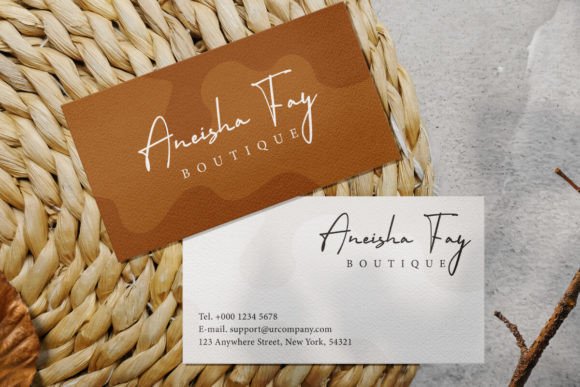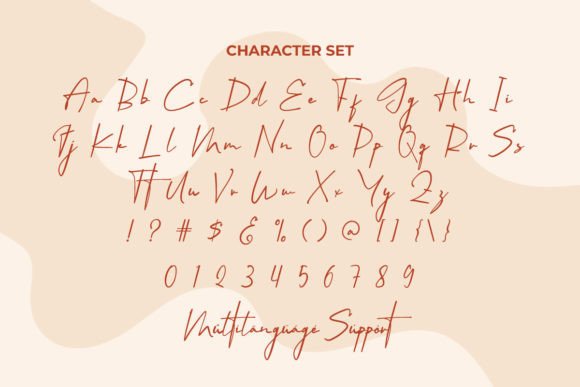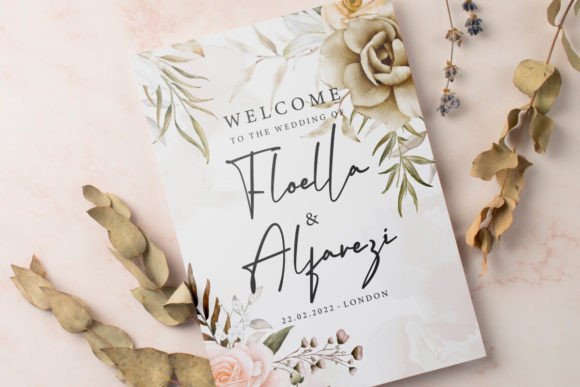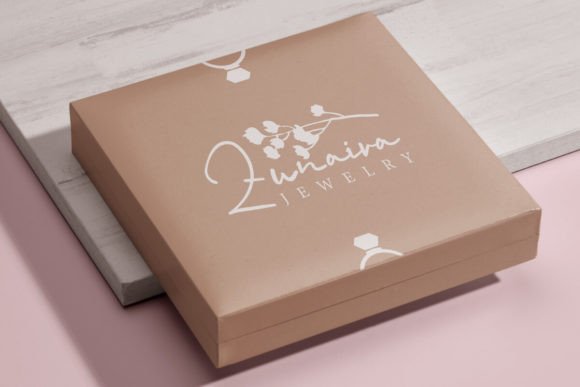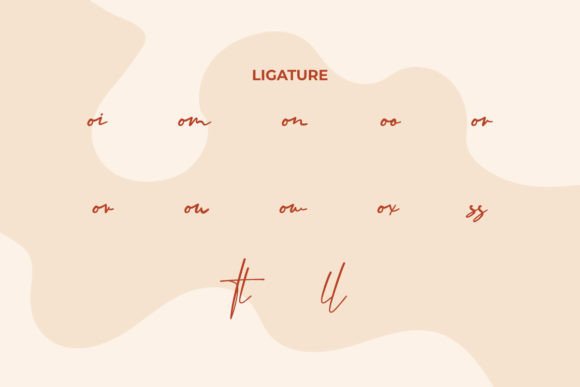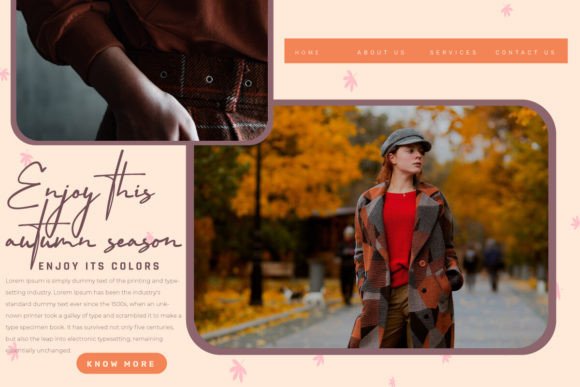
Introduction to Continued Season Font
As designers, we’ve all been there – staring at a blank canvas, searching for that perfect font to bring our creative project to life. The hunt is over, thanks to the stunning Continued Season Font. This beautiful handwritten font boasts sleek and thin lines that wave beautifully, making it both visually striking and easy to read. Its modern appearance has made it a favorite among designers in various industries, from beauty and fashion to photography and publishing.
What sets Continued Season Font apart is its unique ability to add a touch of elegance to any design, whether it’s a high-end magazine or a simple social media post. With its transparent background and high-quality design, this font is a valuable resource for designers looking to elevate their creative projects. And the best part? It’s available for free download, making it an accessible design resource for designers of all levels.
Key Features of Continued Season Font
- High-quality design resource ideal for creative projects, including graphic design, digital art, and typography.
- Features a unique and stylish design with a transparent background, allowing for seamless integration into various design elements.
- Size: Includes multiple font sizes, from 12 to 72 points, catering to various design needs and creative projects.
- Perfect for designers who want to add a touch of elegance and sophistication to their work, with a font that is both modern and timeless.
Honest Review: Continued Season Font
As I delved deeper, I found that the Continued Season Font is perfect for creative projects that require a unique, high-quality font. The design is sleek and modern, making it ideal for digital and print materials alike.
Here are some of the things that work well: ✨
- Transparent background, allowing for seamless integration into any design
- Modern and sleek design that’s sure to impress
However, there are a few limitations to keep in mind: ⚠️
- No customization options, so you’re stuck with the original design
Overall, I’m impressed with the Continued Season Font. It’s a solid addition to any designer’s toolkit, and its free download option makes it a no-brainer for creatives on a budget. Give it a try and see how it can elevate your next design project!
How to Use Continued Season Font
The Continued Season Font is a high-quality design resource perfect for creative projects that require a unique and stylish touch. This font is available for free download, making it an excellent choice for designers on a budget.
To get the most out of the Continued Season Font, try the following:
- Use a transparent background to create a subtle, layered look.
- Combine the font with a high-quality image to create a striking visual effect.
- Experiment with different font sizes and styles to add depth and interest to your design.
The Continued Season Font is perfect for:
- Business cards and stationery
- Marketing materials and brochures
Alternatives to Continued Season Font
Montserrat is a high-quality sans-serif font ideal for creative projects requiring a modern and sleek look. It’s available for free download and features a transparent background, making it a versatile design resource. Use Montserrat for headings, titles, and body text in digital products, websites, and applications.
Montserrat compares to Continued Season Font in its modern aesthetic, but with a more geometric and industrial feel. It’s a great alternative for designers seeking a clean and sophisticated look for their creative project.
Open Sans is a highly legible and approachable sans-serif font suitable for a wide range of creative projects. It’s available for free download and features a transparent background, making it an excellent design resource for designers. Use Open Sans for body text, headings, and titles in digital products, websites, and applications.